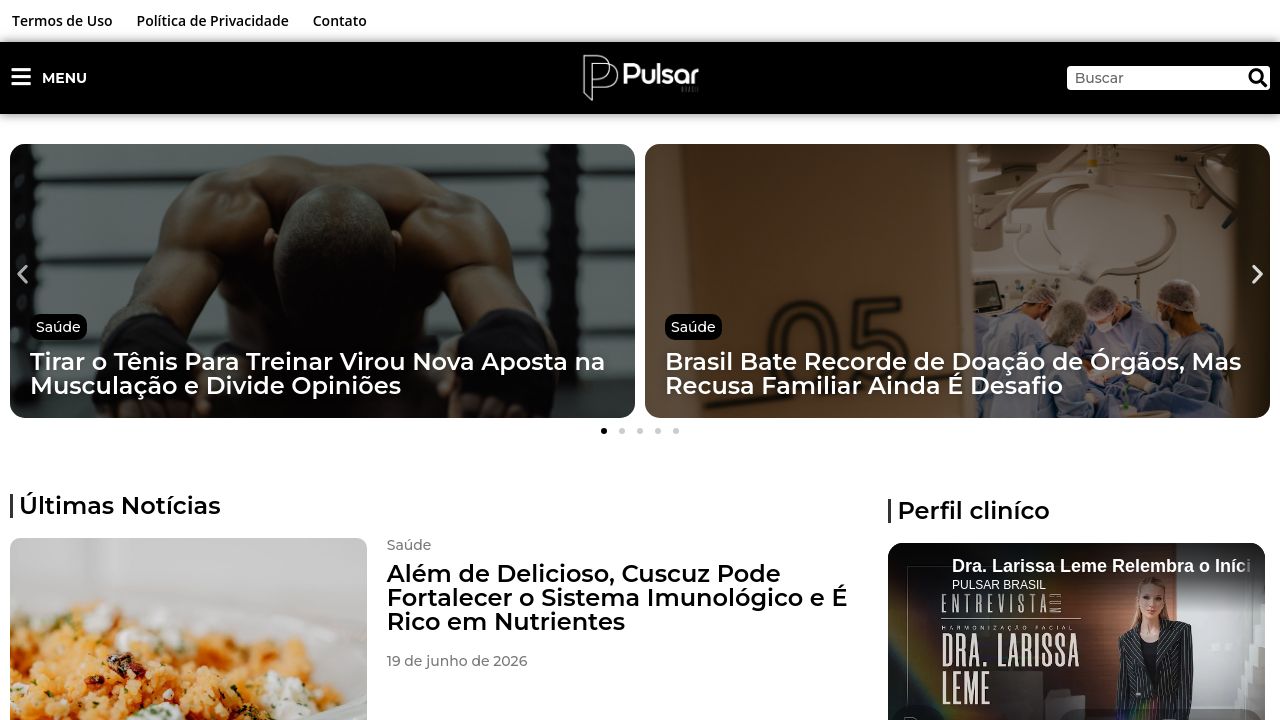
What fonts does Pulsarbrasil use?
Pulsar Brasil showcases a unique visual identity through its thoughtful typography choices. While no specific primary fonts were detected on pulsarbrasil.com, the site utilizes a solid fallback font stack featuring Arial, Roboto, and Helvetica Neue. These fonts suggest a focus on readability and accessibility, catering to a diverse audience interested in technology and innovation. The use of modern CSS font stacks like -apple-system and BlinkMacSystemFont enhances the user experience across various devices.
What fonts does pulsarbrasil.com use?
Pulsar Brasil does not have specific primary fonts detected, but it relies on fallback fonts such as Arial, Roboto, and Helvetica Neue.
How do the fonts on pulsarbrasil.com compare to other options?
The fallback fonts like Arial and Roboto are widely used for their readability and versatility, making them suitable alternatives to other popular fonts in web design.
What styles and weights are available for these fonts?
Arial and Roboto offer a variety of styles and weights, including regular, bold, and italic options, allowing for flexibility in design across pulsarbrasil.com.